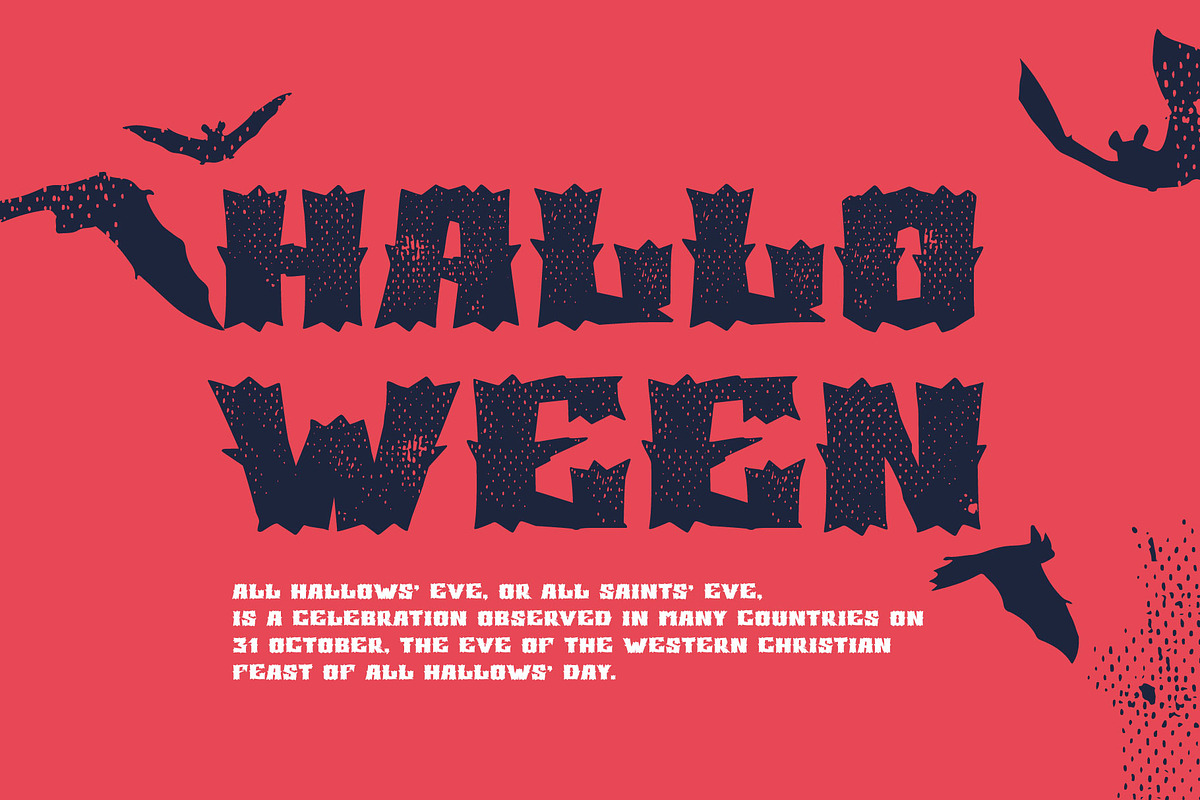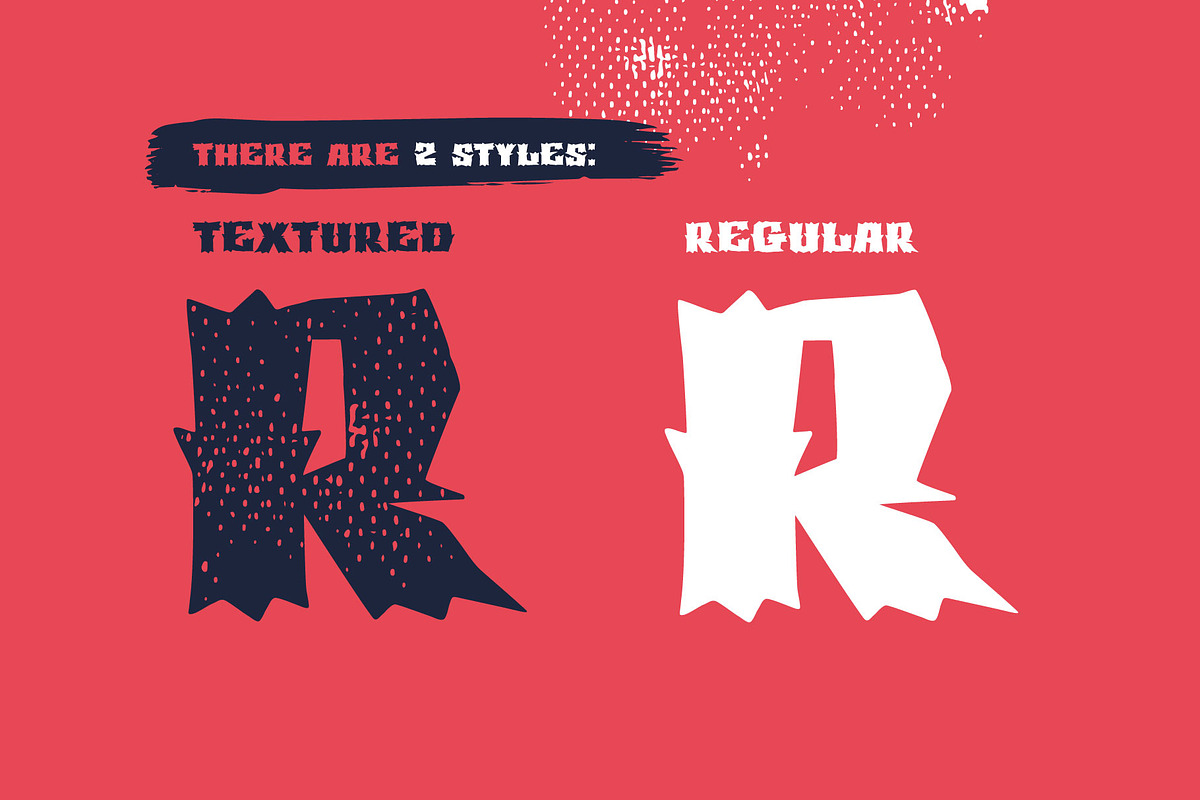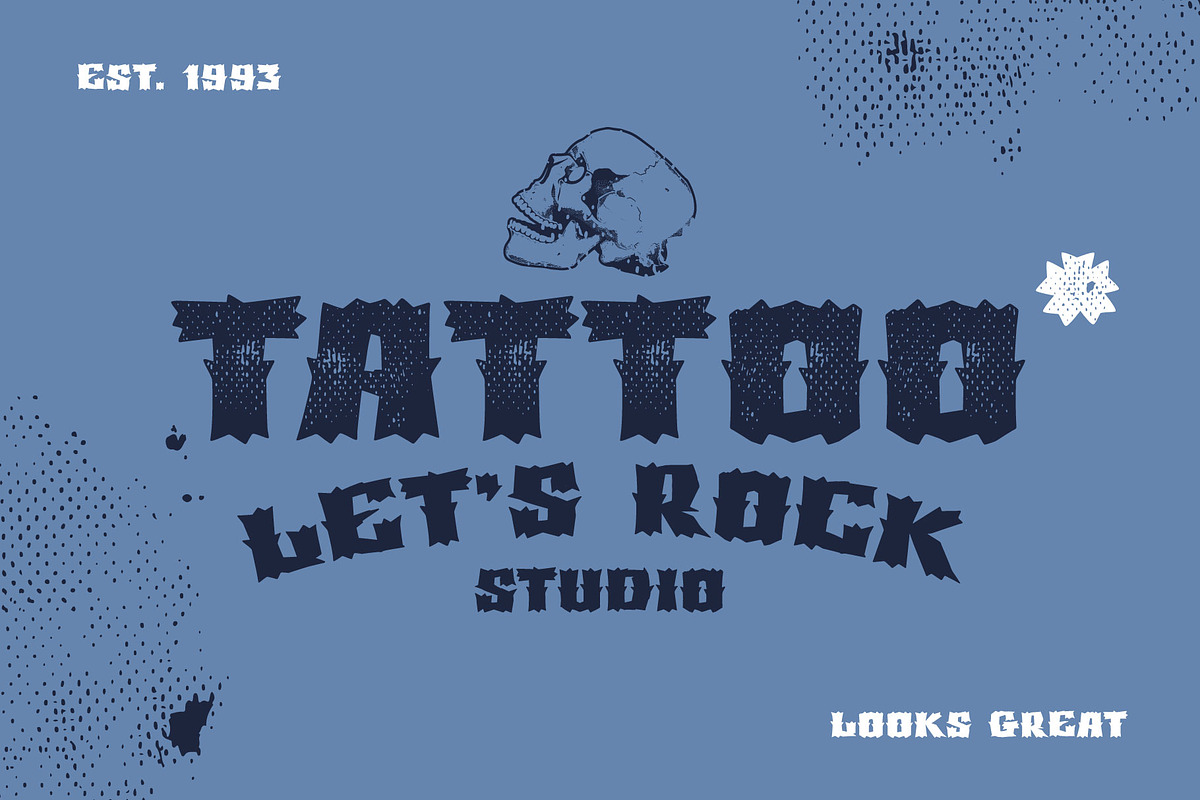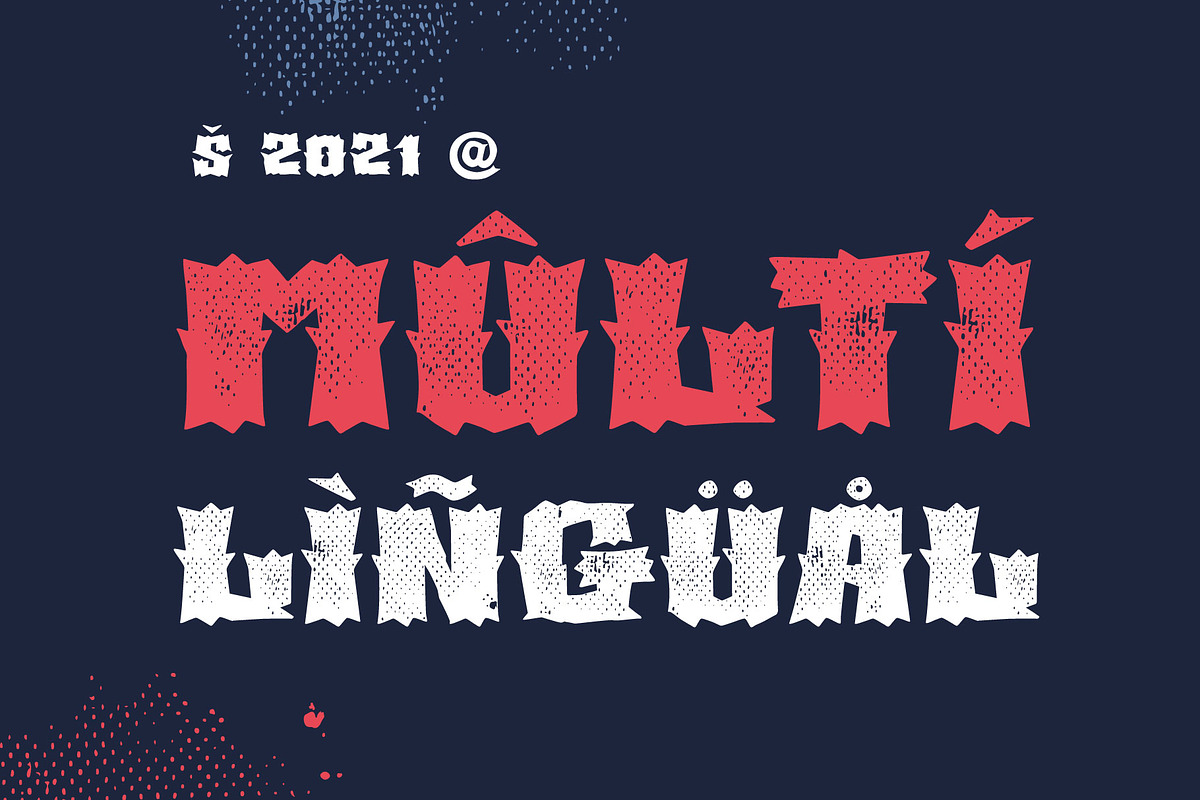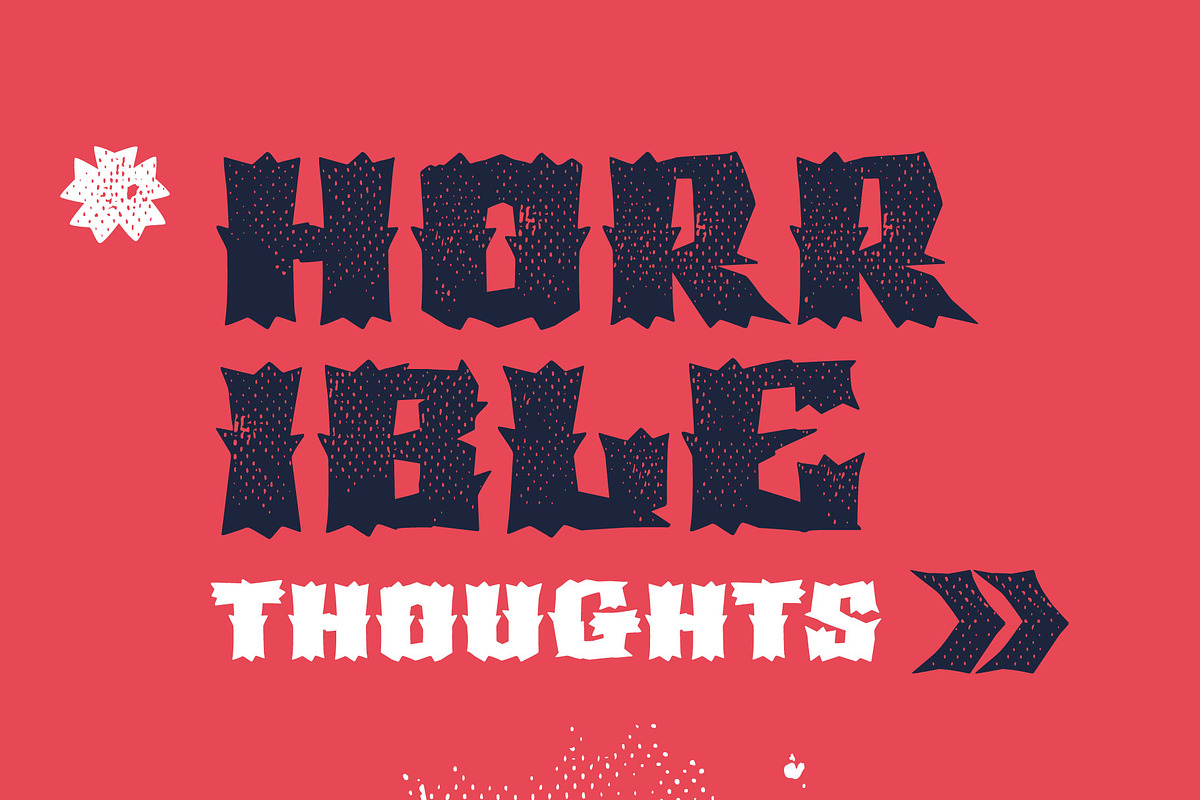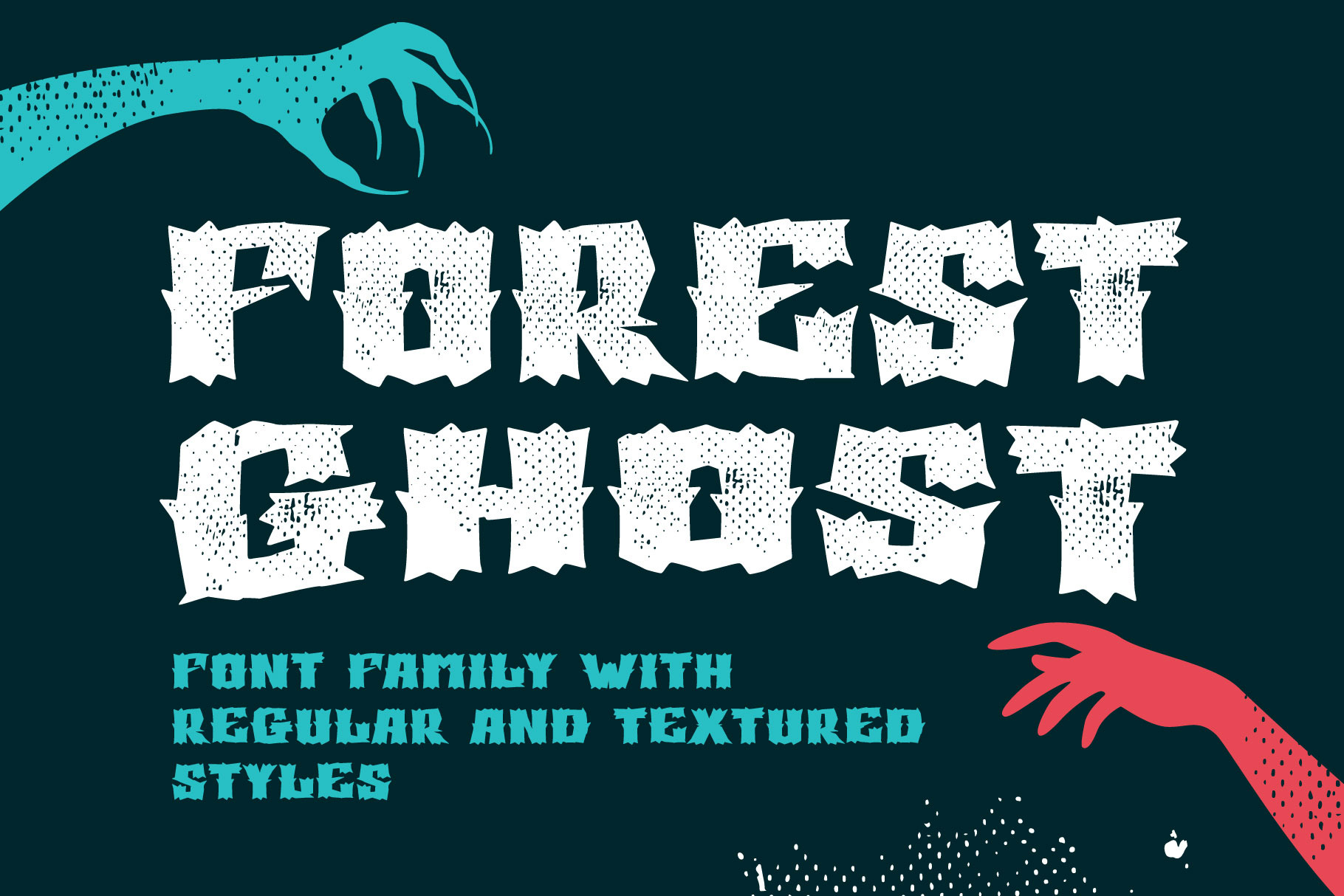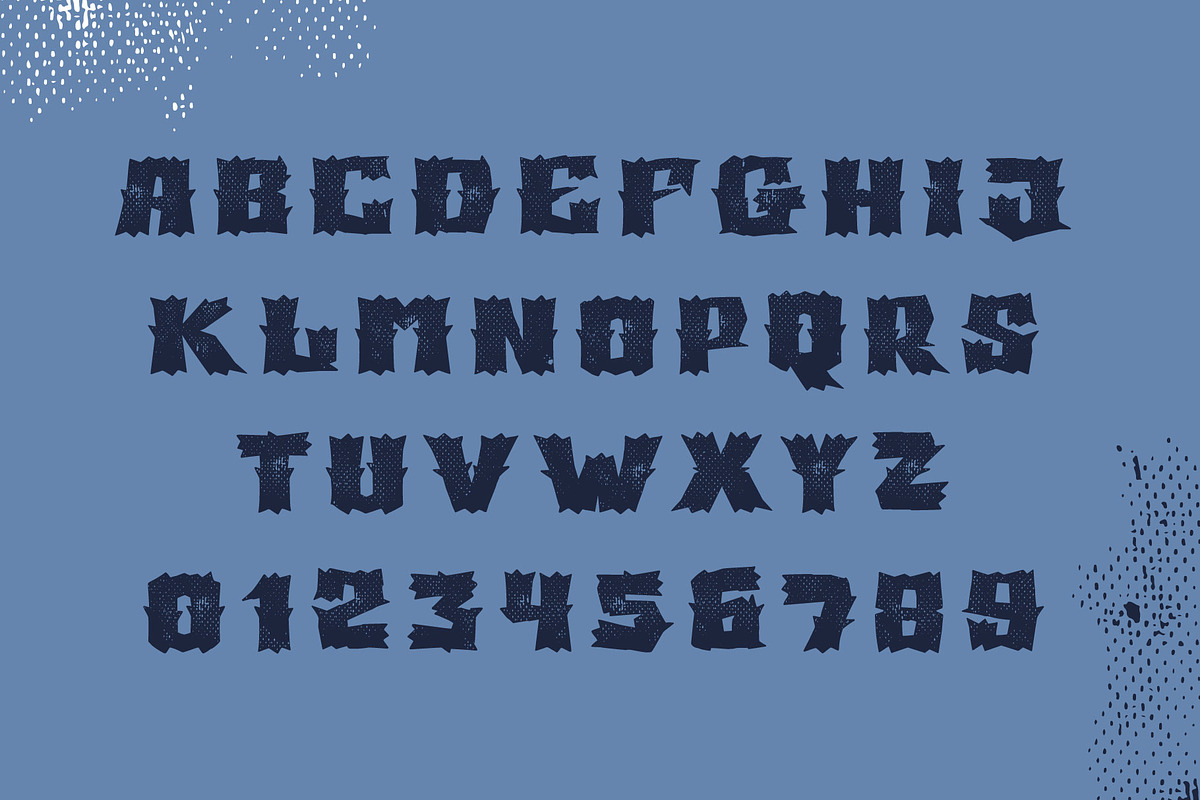
Forest Ghost | Horror Font
Forest Ghost is a font family with Regular and Textured styles. You'll get a playful font for your Scary corporate identity, Circus emblem, Halloween posters, Rock'n'roll flyer, Tattoo studio, Western-style design, and etc.
Font features: All-caps, numbers, punctuation, and multilanguage support.